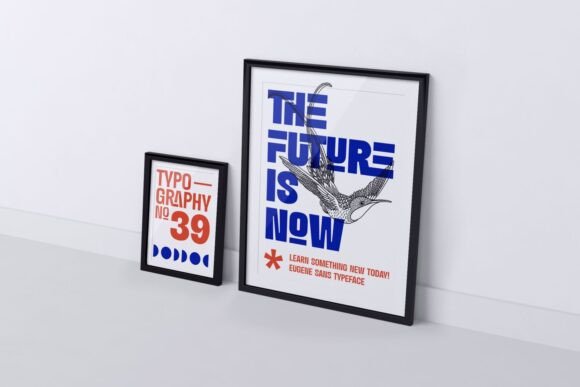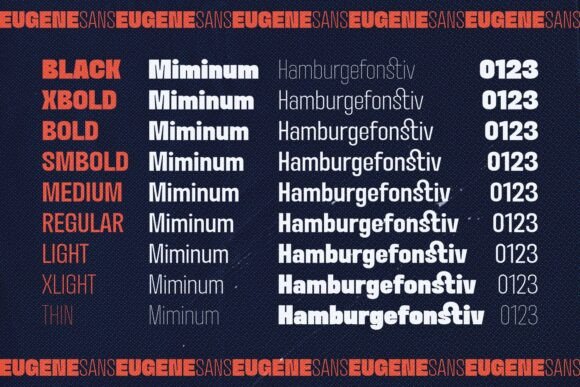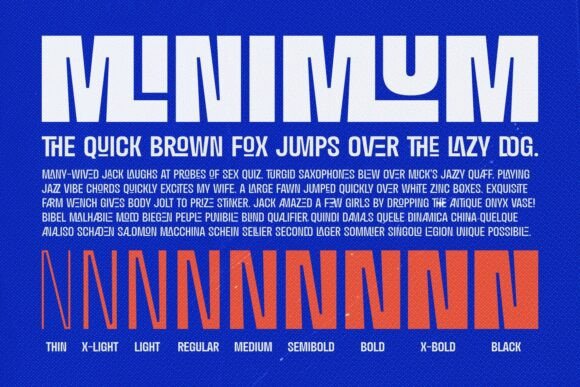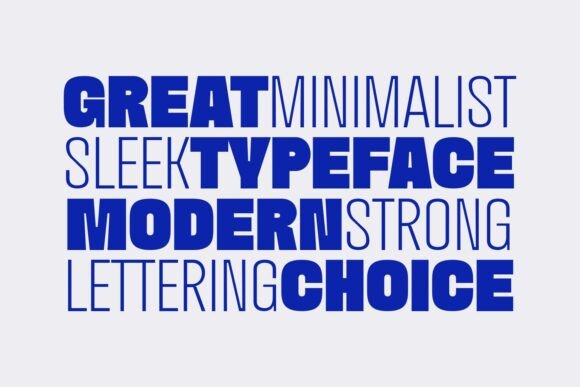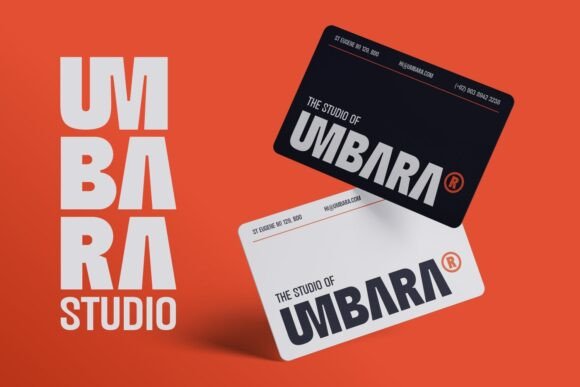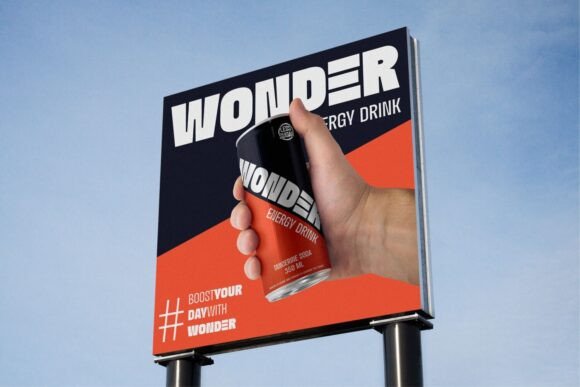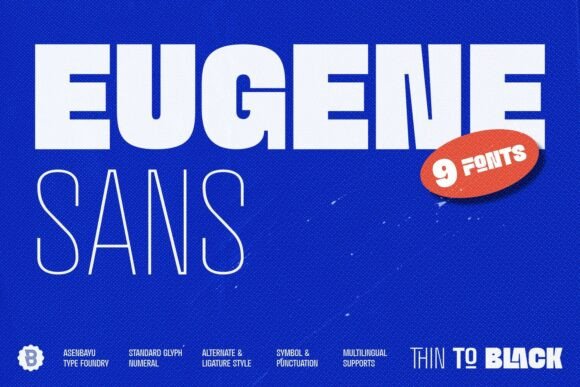
Eugene Sans Font: A Modern Grotesque Sans Serif for Trendy Designs
In the realm of typography, a font can make or break a design. For designers and crafters seeking a modern, versatile, and clean sans serif font, Eugene Sans is an excellent choice. This font family consists of 9 styles, offering a range of options for various design contexts. In this article, we’ll explore the features and benefits of Eugene Sans, and why it’s perfect for trendy packaging label designs, unique logos, poster designs, headlines, and more.
Clean and Functional Design
Eugene Sans boasts a clean and functional design that balances geometric precision with subtle humanist elements. This blend of modernity and approachability makes it an ideal font for designers seeking a contemporary look. The font’s simplicity ensures that it remains adaptable to a wide range of design contexts, from minimalist branding to bold advertising.
Geometric Precision and Humanist Elements
The geometric precision of Eugene Sans is evident in its precise lines and curves. However, what sets it apart from other sans serif fonts is the incorporation of subtle humanist elements. These elements add a touch of warmth and personality to the font, making it more relatable and engaging. This balance of geometric and humanist features makes Eugene Sans a versatile font suitable for various design applications.
9 Styles for Endless Possibilities
Eugene Sans offers a comprehensive font family consisting of 9 styles. This range allows designers to experiment with different weights and styles to achieve the perfect look for their project. Whether you need a bold and attention-grabbing headline or a clean and elegant body text, Eugene Sans has got you covered.
Trendy Packaging Label Designs
For designers working on packaging label designs, Eugene Sans is an excellent choice. Its modern and clean appearance makes it perfect for showcasing products in a trendy and appealing way. The font’s versatility ensures that it can be used for various product categories, from cosmetics to food and beverages.
Unique Logos and Branding
Eugene Sans is also suitable for creating unique logos and branding materials. Its simple yet distinctive appearance makes it easy to recognize and remember. Designers can use Eugene Sans to create bold and eye-catching logos that stand out in a crowded market.
Poster Designs and Headlines
When it comes to poster designs and headlines, Eugene Sans shines. Its clean and geometric design makes it perfect for large-scale typography, while its subtle humanist elements add a touch of sophistication. Designers can use Eugene Sans to create striking posters and headlines that grab attention and convey their message effectively.
So, why should designers and crafters choose Eugene Sans? Here are just a few benefits:
- Versatility: Eugene Sans can be used for a wide range of design contexts, from packaging labels to logos, posters, and headlines.
- Clean and modern design: The font’s clean and geometric design makes it perfect for contemporary designs.
- 9 styles: The comprehensive font family offers a range of options for designers to experiment with.
- Easy to read: Eugene Sans is clear and legible, making it perfect for body text and headlines.
In conclusion, Eugene Sans is an excellent choice for designers and crafters seeking a modern, versatile, and clean sans serif font. Its balance of geometric precision and subtle humanist elements makes it perfect for a wide range of design contexts. With its 9 styles and clean design, Eugene Sans is suitable for trendy packaging label designs, unique logos, poster designs, headlines, and more. Whether you’re a designer or crafter, Eugene Sans is a font worth exploring.